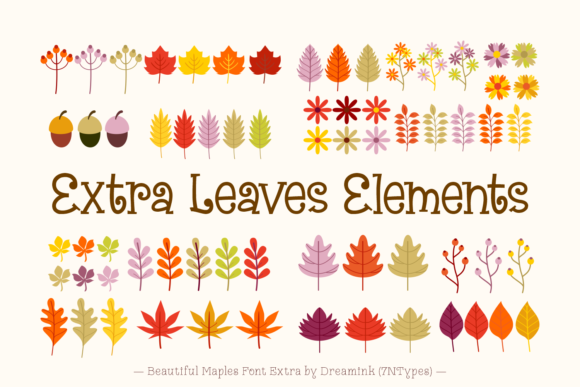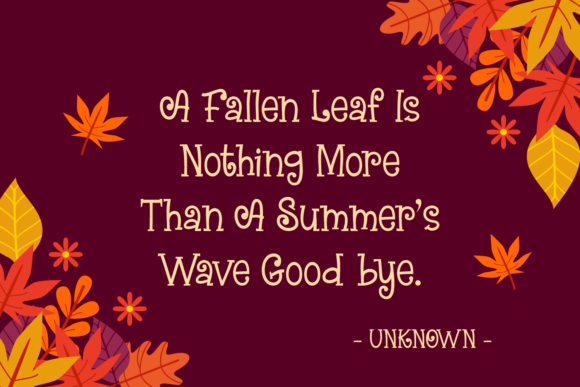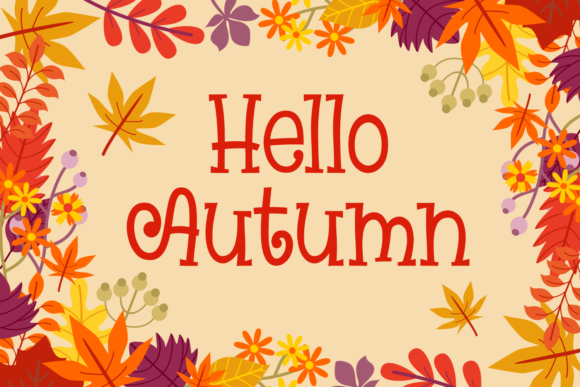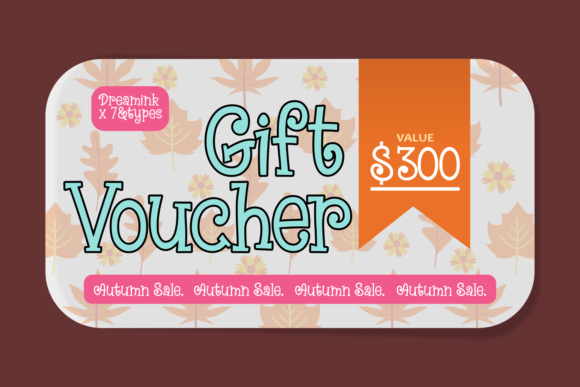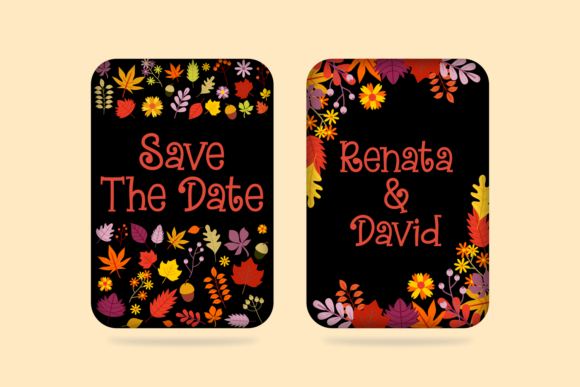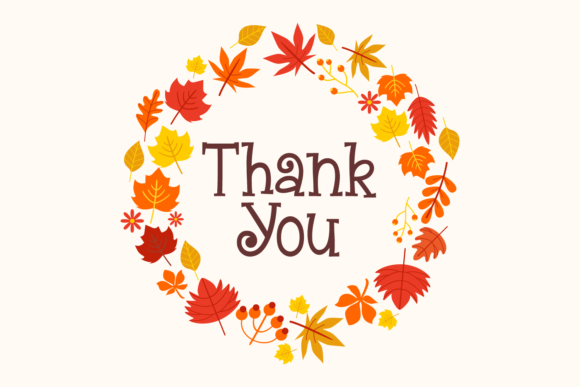
Remember that moment when you stumbled upon the perfect font for your design project? The one that suddenly brought all your ideas together and made them shine? It’s like finding the missing puzzle piece – everything just clicks into place. For designers like you, Beautiful Maples Font is that magical find. This enchanting handwritten font is designed to add a touch of fun, playfulness, and authenticity to any creative idea.
Whether you’re working on a branding project, a social media campaign, or a print design, Beautiful Maples Font is the perfect companion to help you stand out from the crowd. With its unique character and charm, it’s no wonder why designers love using it to add a personal touch to their work. Beautiful Maples Font is more than just a font – it’s a way to express your creativity and bring your ideas to life.
Beautiful Maples Font Key Features
- Unique Characteristics: Elegant, hand-drawn design with subtle texture and organic feel
Beautiful Maples Font Review
I recently had the chance to work with the “Beautiful Maples Font” and I must say, it’s a beautiful, elegant font with a lot to offer. ✨ One of its strongest features is its classic, timeless feel that’s perfect for projects where a sophisticated look is required.
Here are some of its strengths:
- Wide range of characters: The font includes a wide range of characters, including numerals, punctuation marks, and special characters, making it a great choice for projects that require a lot of text.
- High-quality glyphs: The font’s glyphs are well-designed and high-quality, giving your text a professional look.
- Easy to read: The font is highly legible, making it easy to read even at smaller font sizes.
However, there are a few limitations to be aware of:
- Not ideal for bold text: While the font looks great in regular text, it can become a bit too delicate when used in bold text.
- May require tweaking: Depending on the project, you may need to tweak the font settings to get the desired look.
- Not a good choice for modern designs: The font’s classic feel may not be the best fit for modern or minimalist designs.
- Food and beverage packaging
- Home decor and furniture design
- Set the title of the invitation, such as “Harvest Gathering” or “Fall Festival Invitation”.
- Highlight important details, like the date and time of the event.
- Warm, earthy colors like orange, red, and yellow.
- Leaf-shaped graphics or illustrations.
- A subtle texture to give the invitation a natural feel.
- Set the brand name and product name, such as “Sweet Maple Syrup”.
- Highlight the ingredients or nutritional information.
- A vintage-inspired color palette with warm, earthy tones.
- A simple, hand-drawn illustration of a maple tree.
- A distressed texture to give the label a worn, rustic feel.
Overall, I think the “Beautiful Maples Font” is a great choice for projects where a sophisticated, elegant look is required. With a little tweaking and consideration for its limitations, it can be a great addition to your design toolkit.
Tips for Getting the Most Out of Beautiful Maples Font
For the best results, use Beautiful Maples Font for titles, headings, and other emphasis elements. This font is particularly effective for creating a warm and inviting atmosphere.
Beautiful Maples Font is commonly used for: